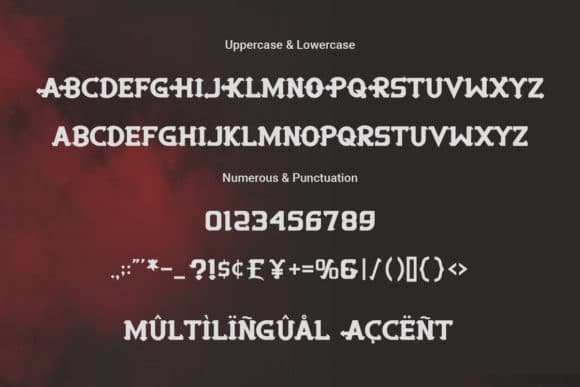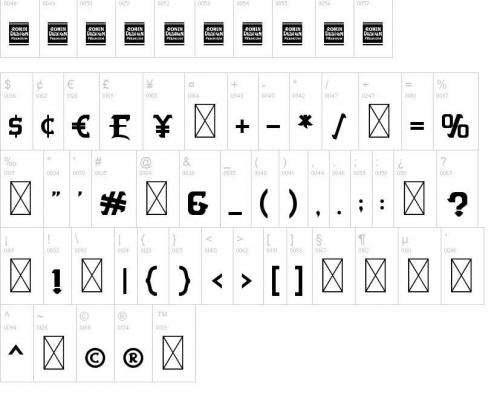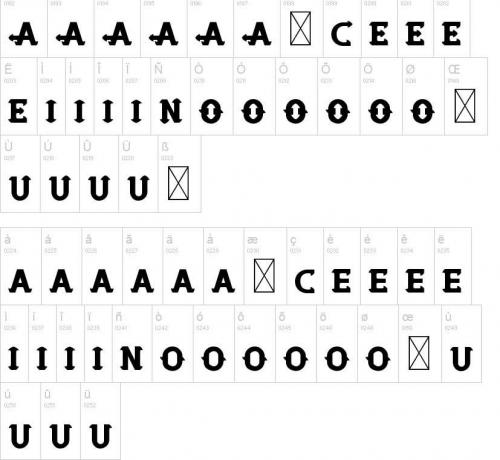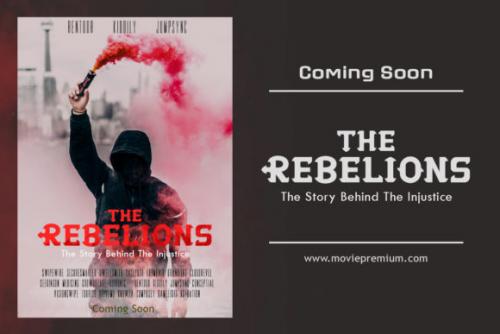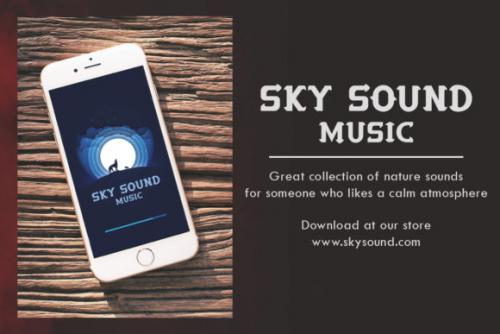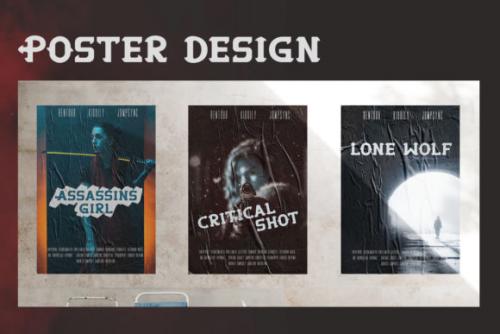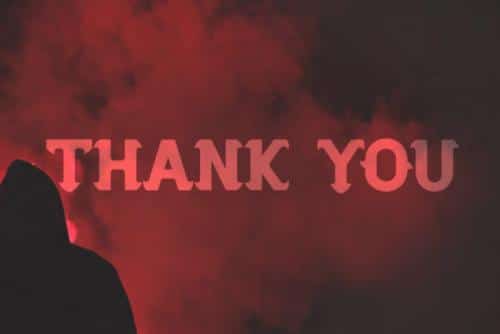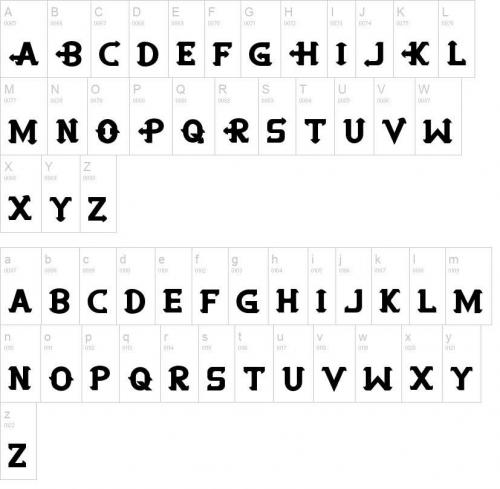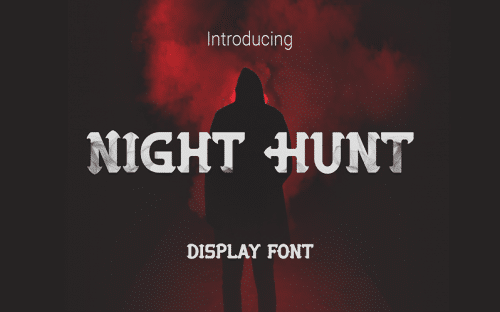
Night Hunt is a daring and genuine display font. Irrespective of topic, this font will be an incredibly asset to your fonts’ library, as it has the potential to elevate any creation.
- Designer: Ronin Design